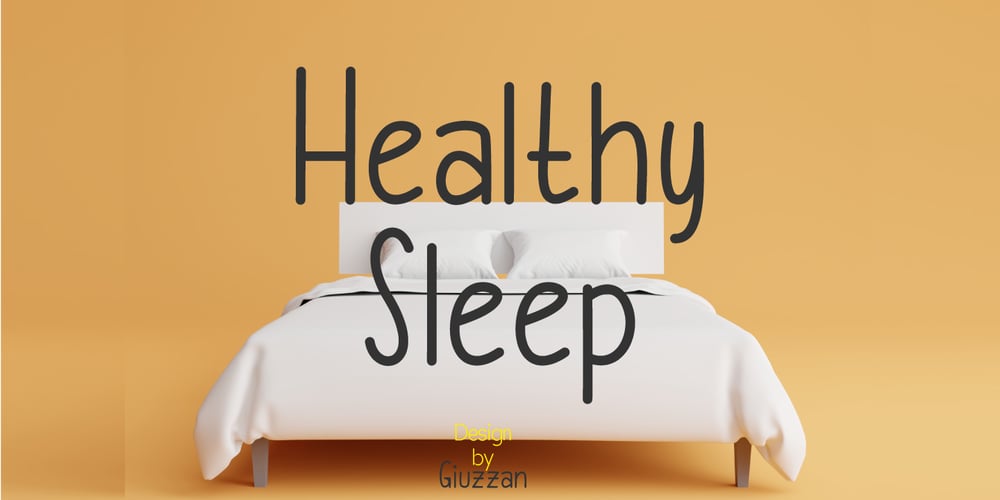
Healthy Sleep Font Family was designed by Muhamad Fauzan and published by Giuzzan. Healthy Sleep contains 1 styles and family package options. Healthy Sleep is a calming handwritten font that exudes tranquility and relaxation. Its smooth curves and gentle strokes create a soothing atmosphere, making it perfect for sleep, wellness, and self-care designs.